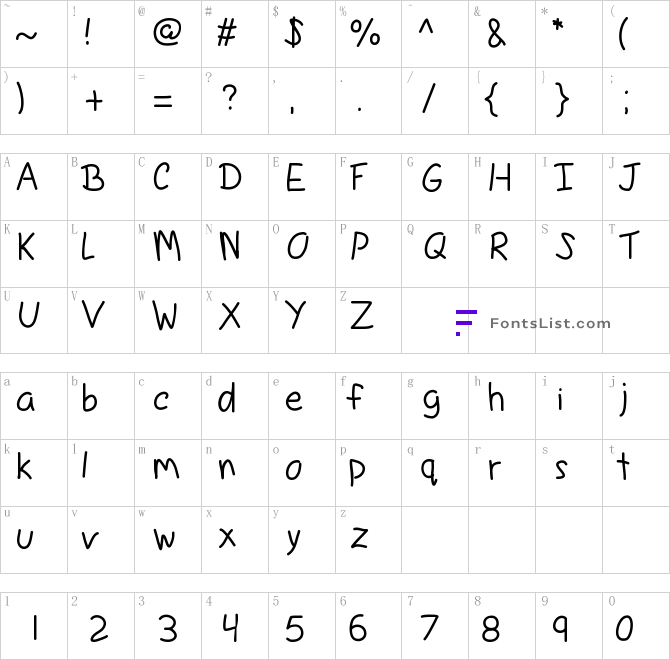
- Font Name:AgymLight
AgymLight.ttf is a very beautiful artistic font, AgymLight.ttf is widely used in the design and printing of various books and pictures,AgymLight.ttf has a strong visual impact,AgymLight.ttf is a commonly used font in newspapers, magazines and books, and is used in posters, e-commerce Poster design, store design, logo design, font design and other fields.AgymLight.